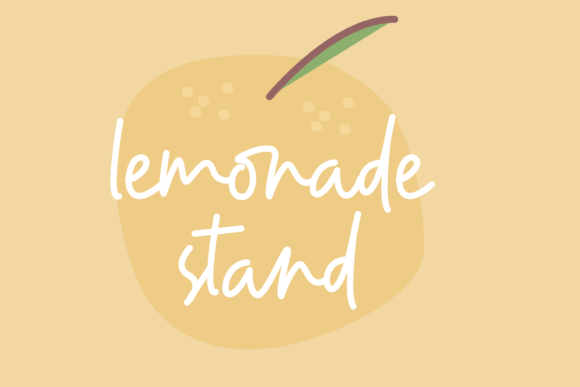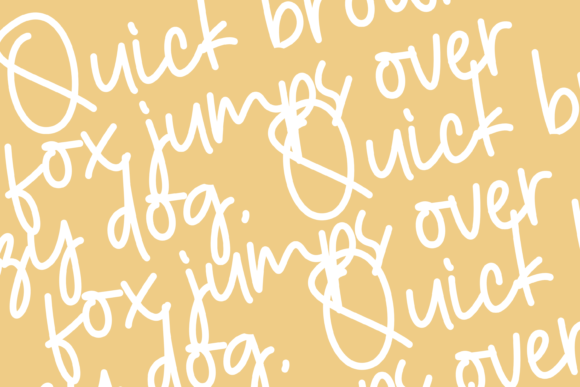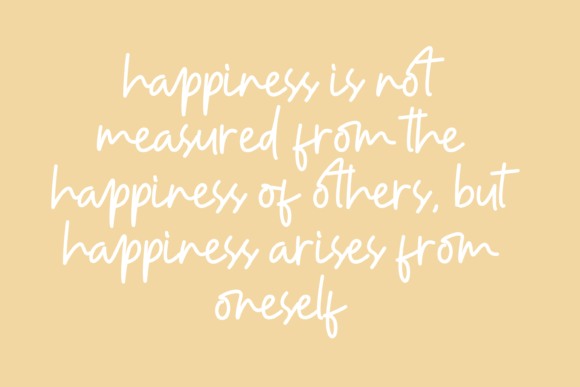
Lemonade Stand Font
About Lemonade Stand Font
Lemonade Stand is a sweet, natural and friendly handwritten font. No matter the topic, this font will be an incredibly asset to your fonts’ library, as it has the potential to elevate any creation.